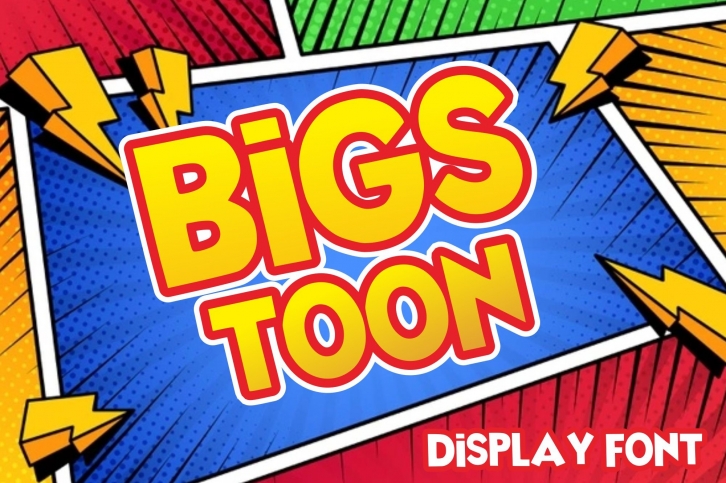
Bigs Toon is a fun and friendly styled display font. Its informal feel and casual vibe make it a top choice for any creation that requires a playful touch. It will look beautiful on product packaging, t-shirts, labels, posters, logos and anything else you wish to develop!